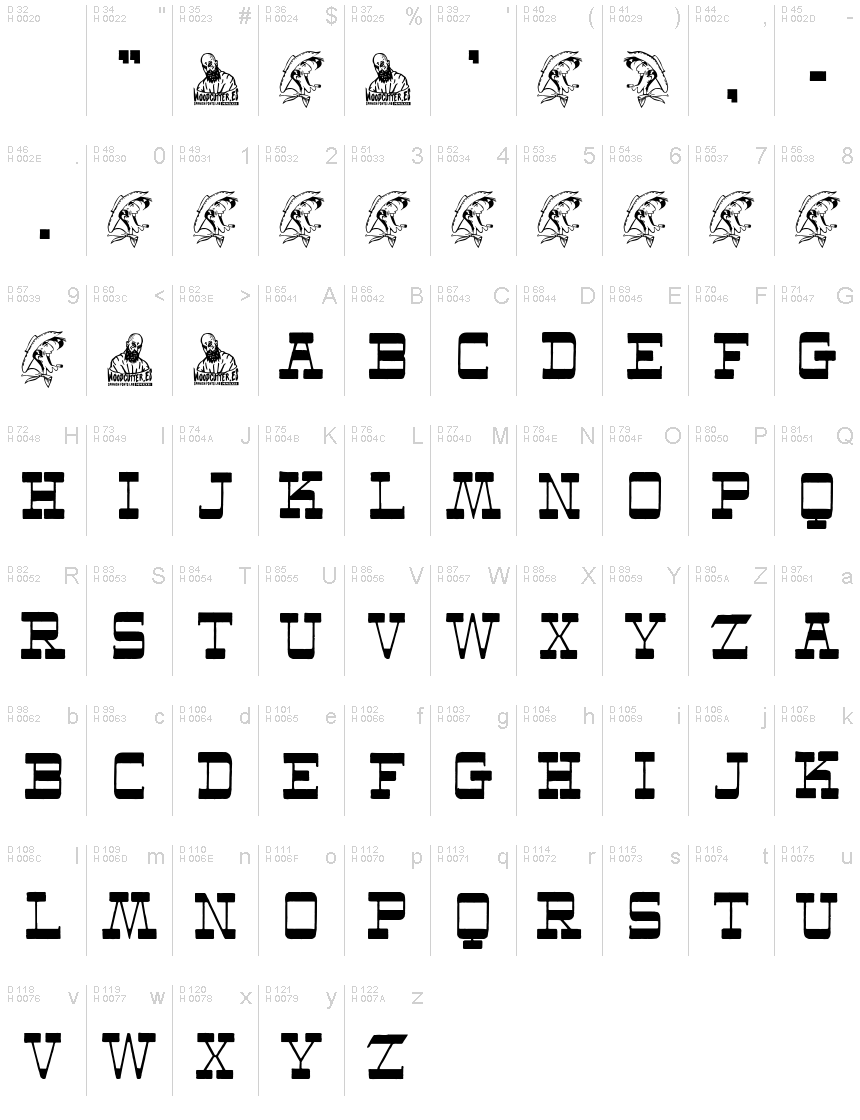
The New West
The New West, designed by Woodcutter, is a captivating display font that exudes the rugged charm of the American frontier. With its bold, angular letterforms and distinct western flair, this font transports viewers to a bygone era of pioneers and gunslingers. The New West's striking aesthetic immediately commands attention, its robust strokes and dramatic serifs evoking a sense of strength and resilience. This font's versatility shines through, as it seamlessly transitions from bold headlines to eye-catching signage, infusing any design with a touch of rugged authenticity.
The New West's versatility makes it a versatile choice for a variety of design projects. Its bold, attention-grabbing presence lends itself well to posters, album covers, and branding for Western-themed businesses, lending a sense of grit and adventure to any visual narrative. Additionally, The New West's distinctive character can elevate packaging, editorial layouts, and even digital interfaces, adding a distinctive touch of Americana to a wide range of design applications.